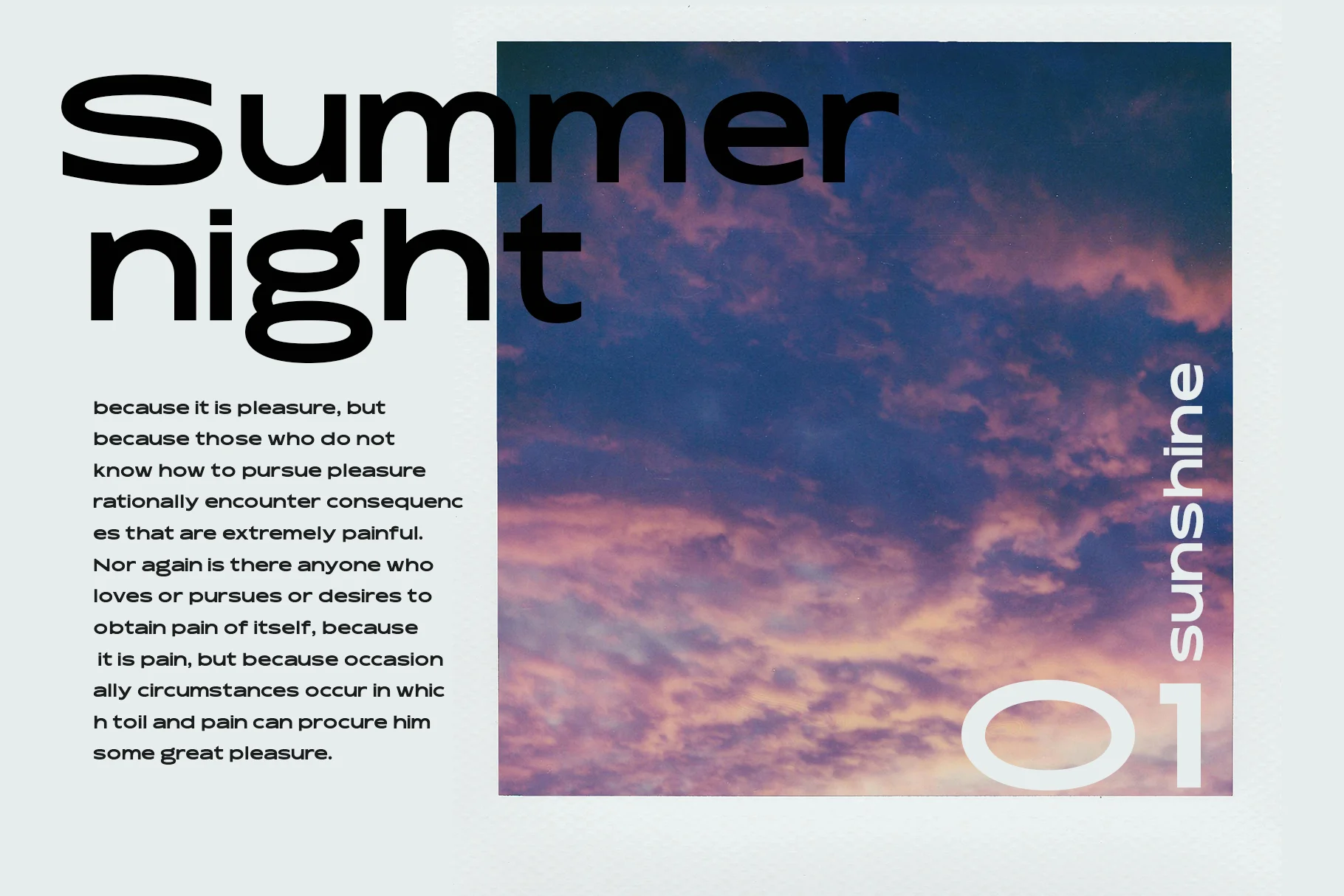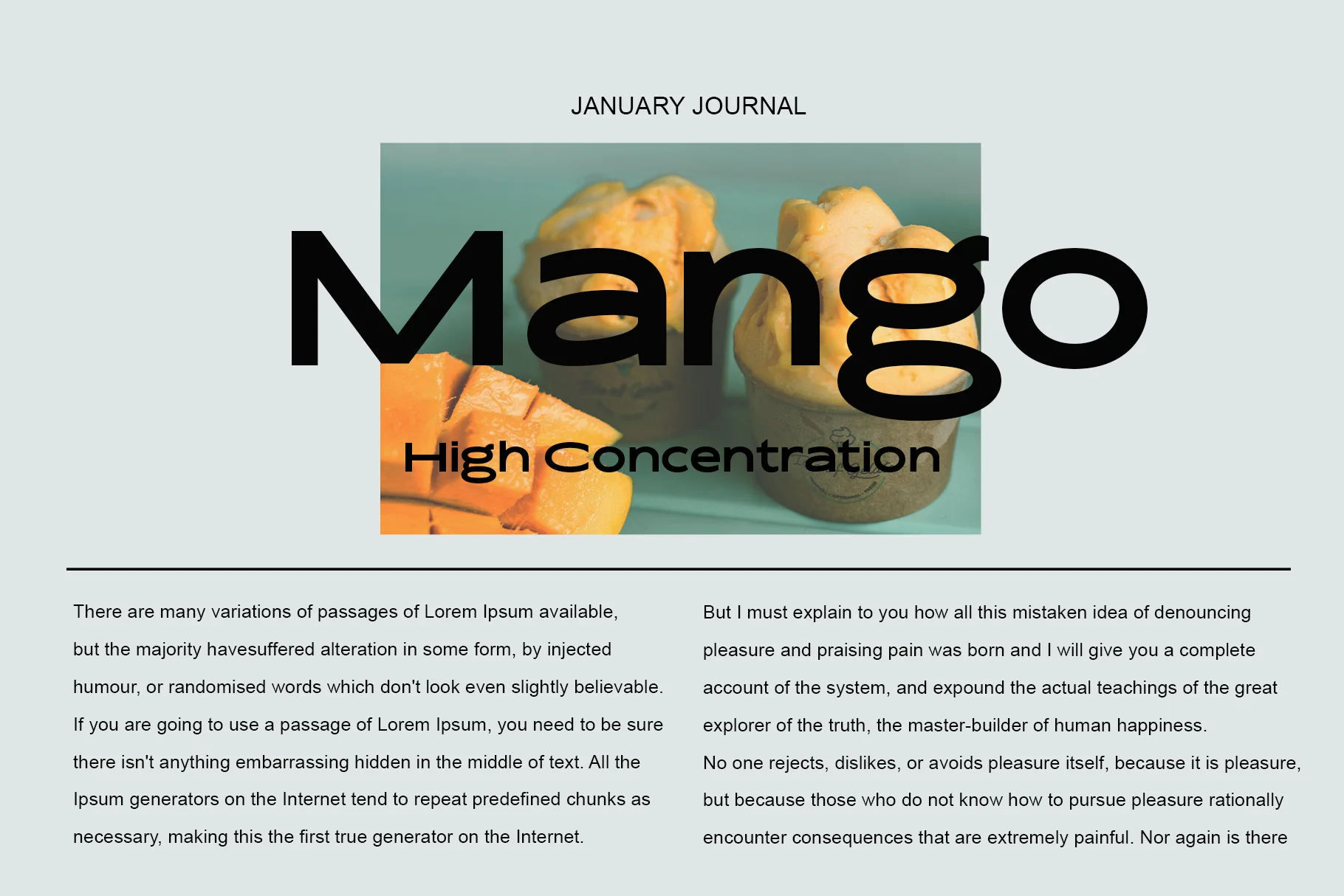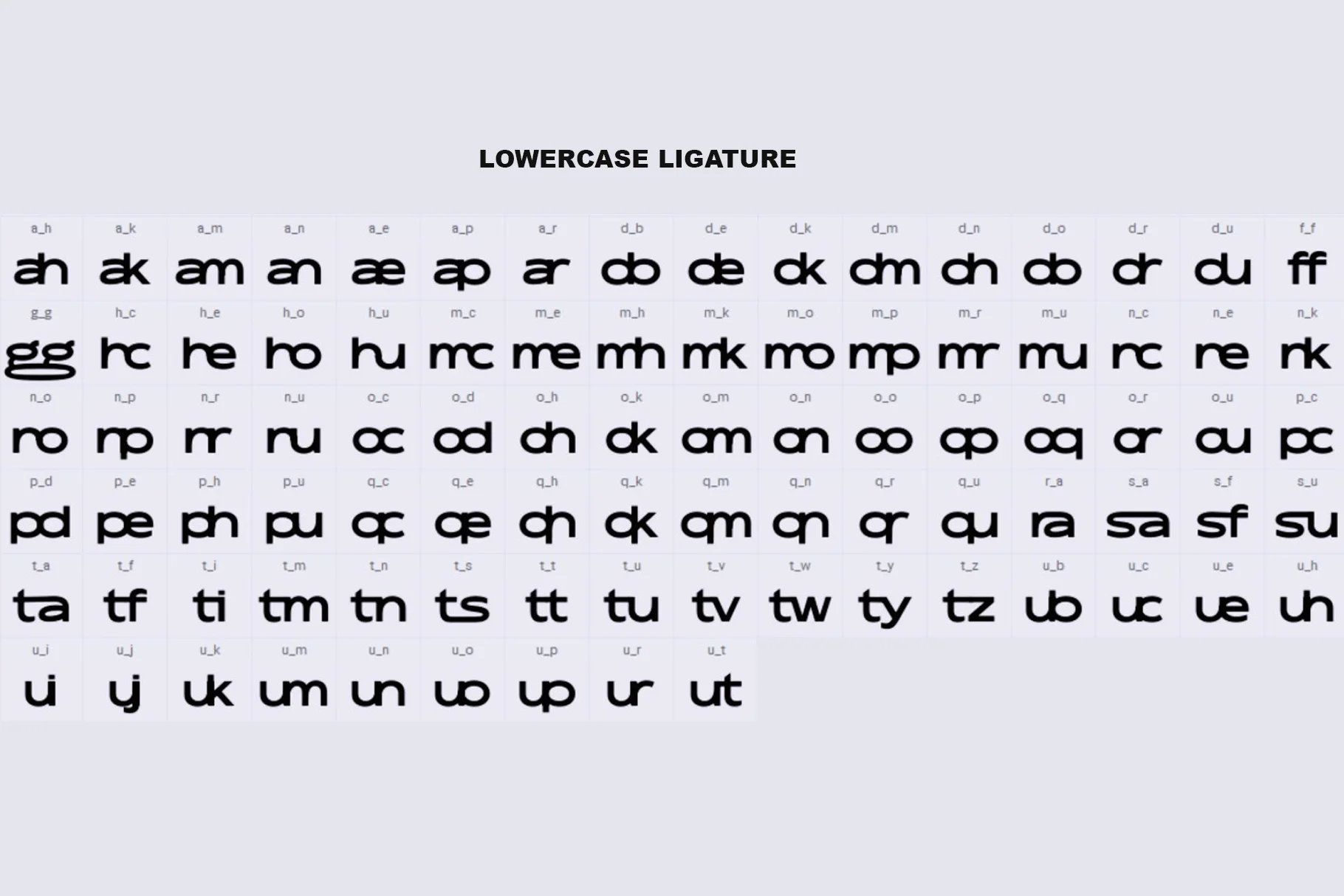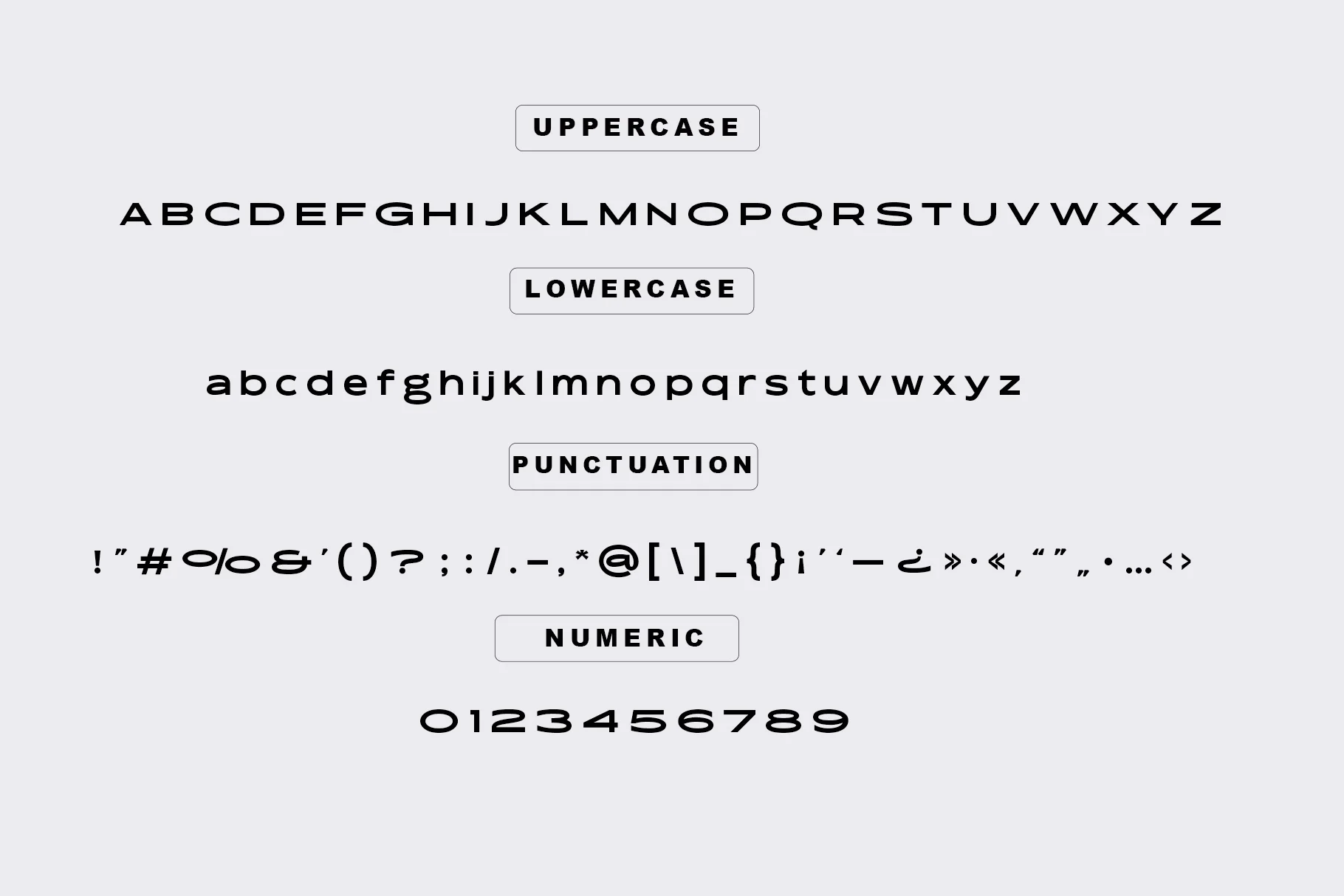
Nissie Tangle
- Spacing Monospace
Nissie Tangle will perfect for many project: book, magazines, logo, branding, photography, quotes, blog header, poster, advertisements, etc.